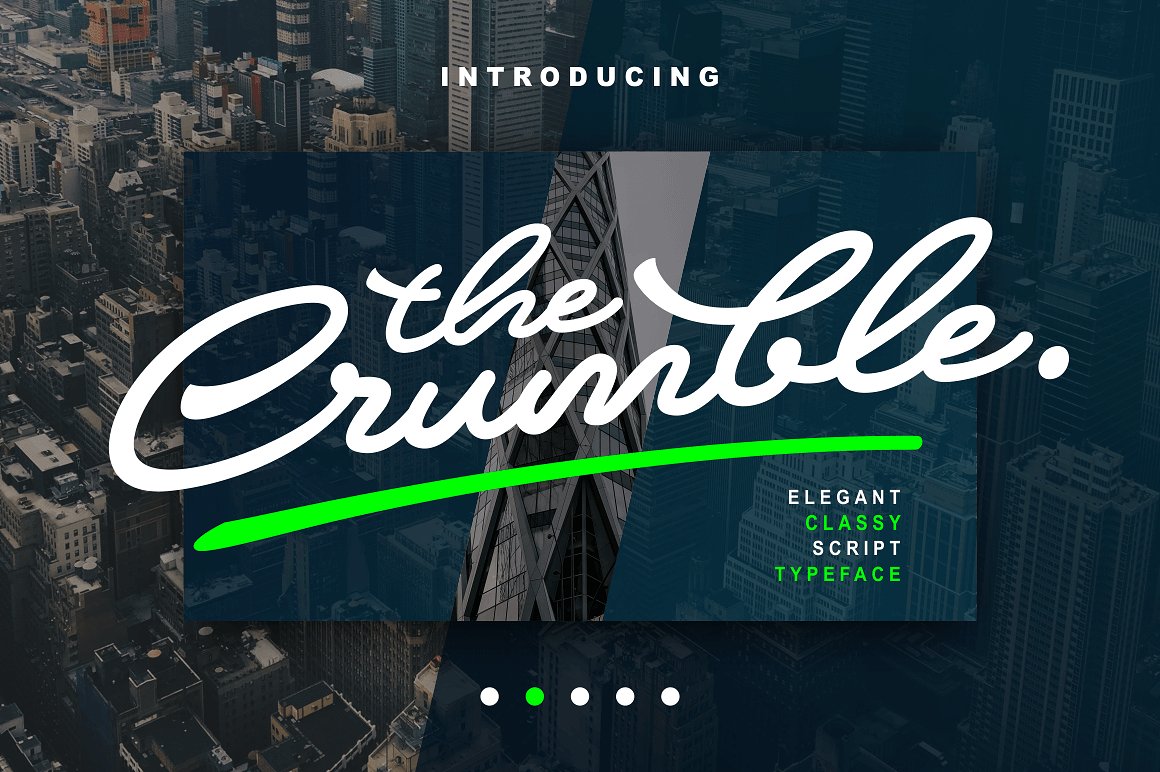
Crumble Script
Crumble Script Font
Crumble Script Free Version is one you can try today! An elegant and classy script with signature style on it. The name ‘Crumble’ yet this font is made very carefully to get the best dynamic flow. This font will perfect for some display purposes like : Logotype, Make some quotes, Poster, Wedding and Invitation. However, it can work as well for your body text.